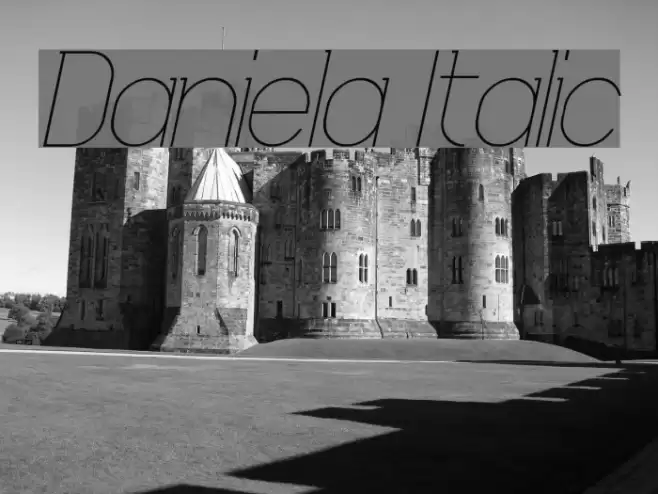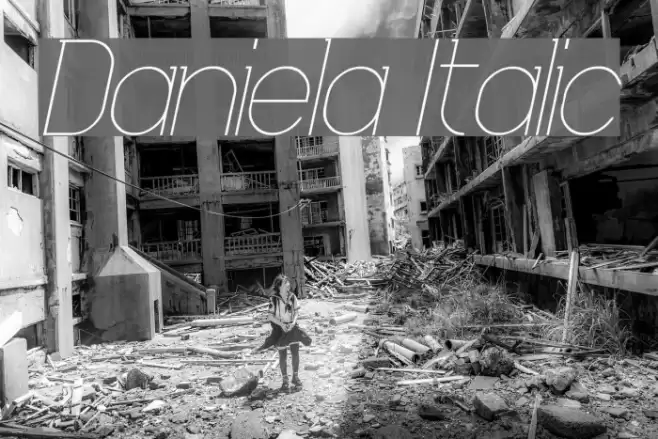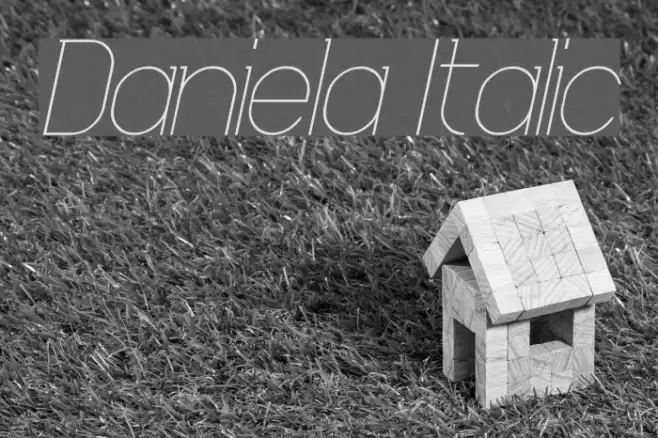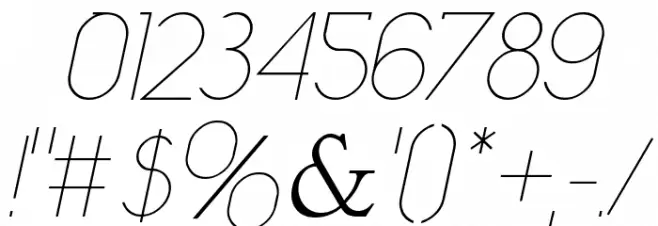
Daniela Italic Font
Daniela Italic Description
This font features a sleek, italicized style with a modern and elegant appearance. The characters are thin and elongated, giving a sense of sophistication and fluidity. The uppercase and lowercase letters maintain a consistent slant, enhancing the italic effect. The numerals and special characters follow the same design principles, ensuring uniformity across the typeface. Its clean lines and minimalistic approach make it suitable for contemporary design projects where a touch of elegance is desired.
A sleek, modern italic font with thin, elongated characters from Uncategorized fonts.
- Proposed Projects: Ideal for fashion magazines, luxury branding, elegant invitations, and modern web design.
- Weight: Light
- Use Case: Headlines, Logos, Invitations